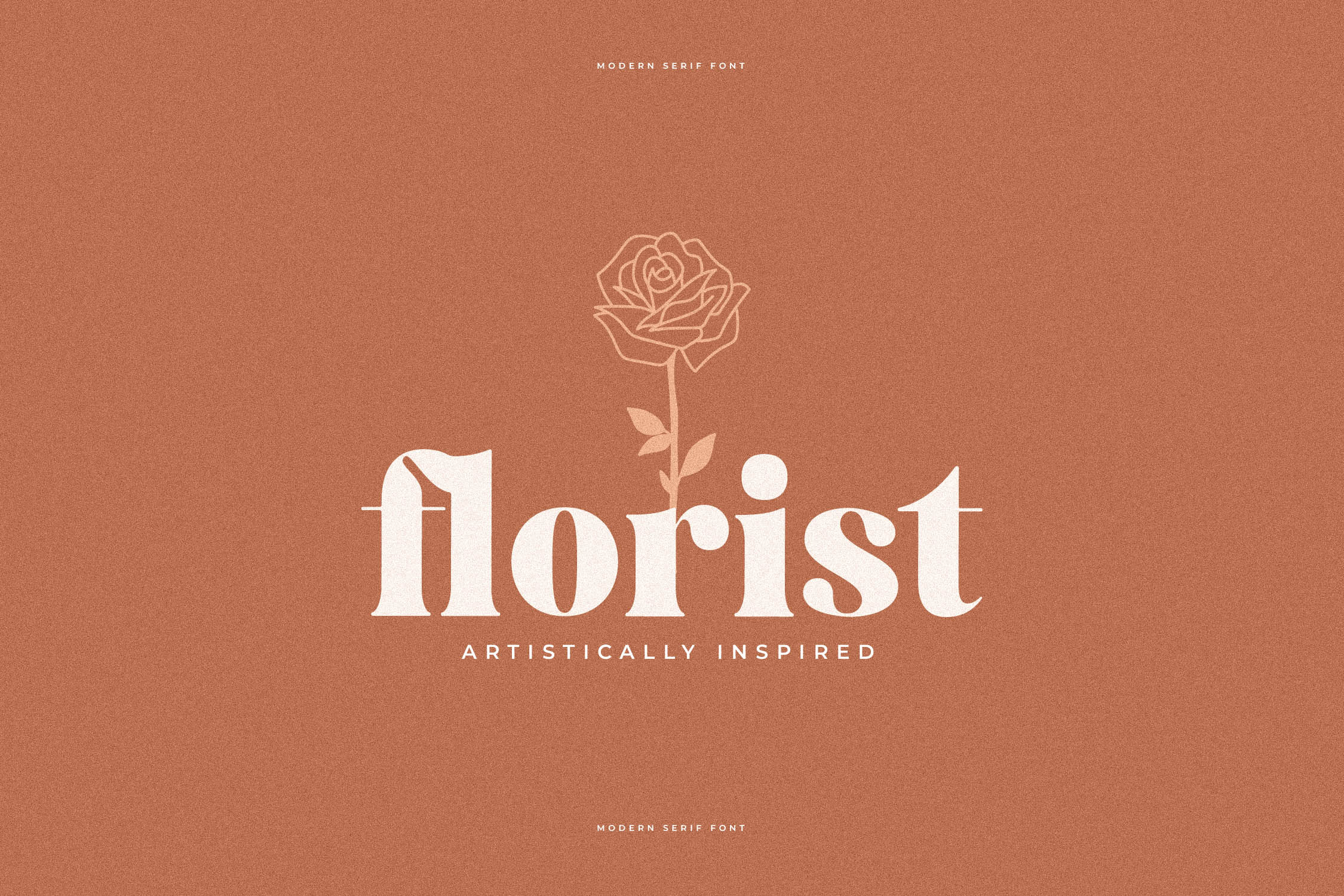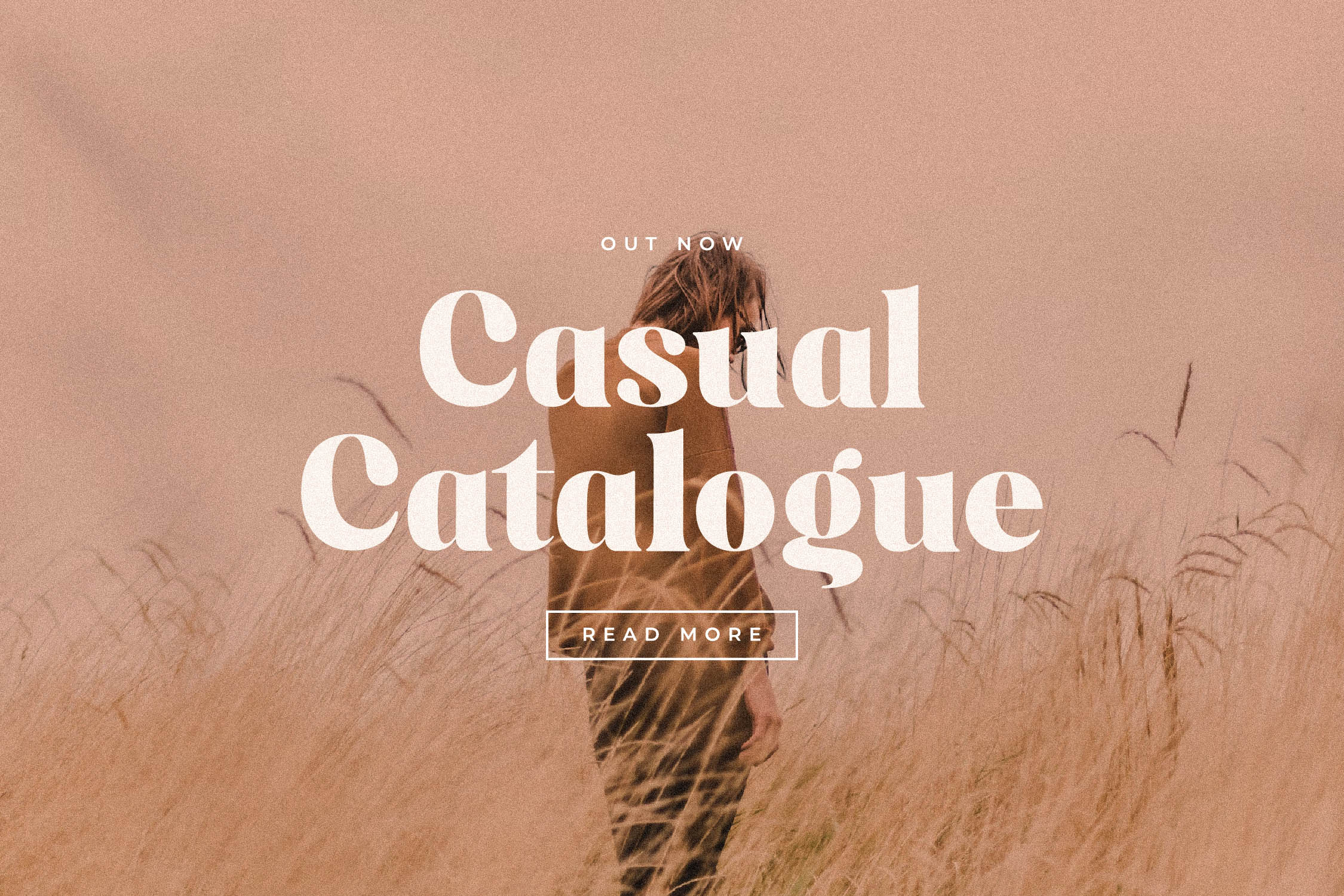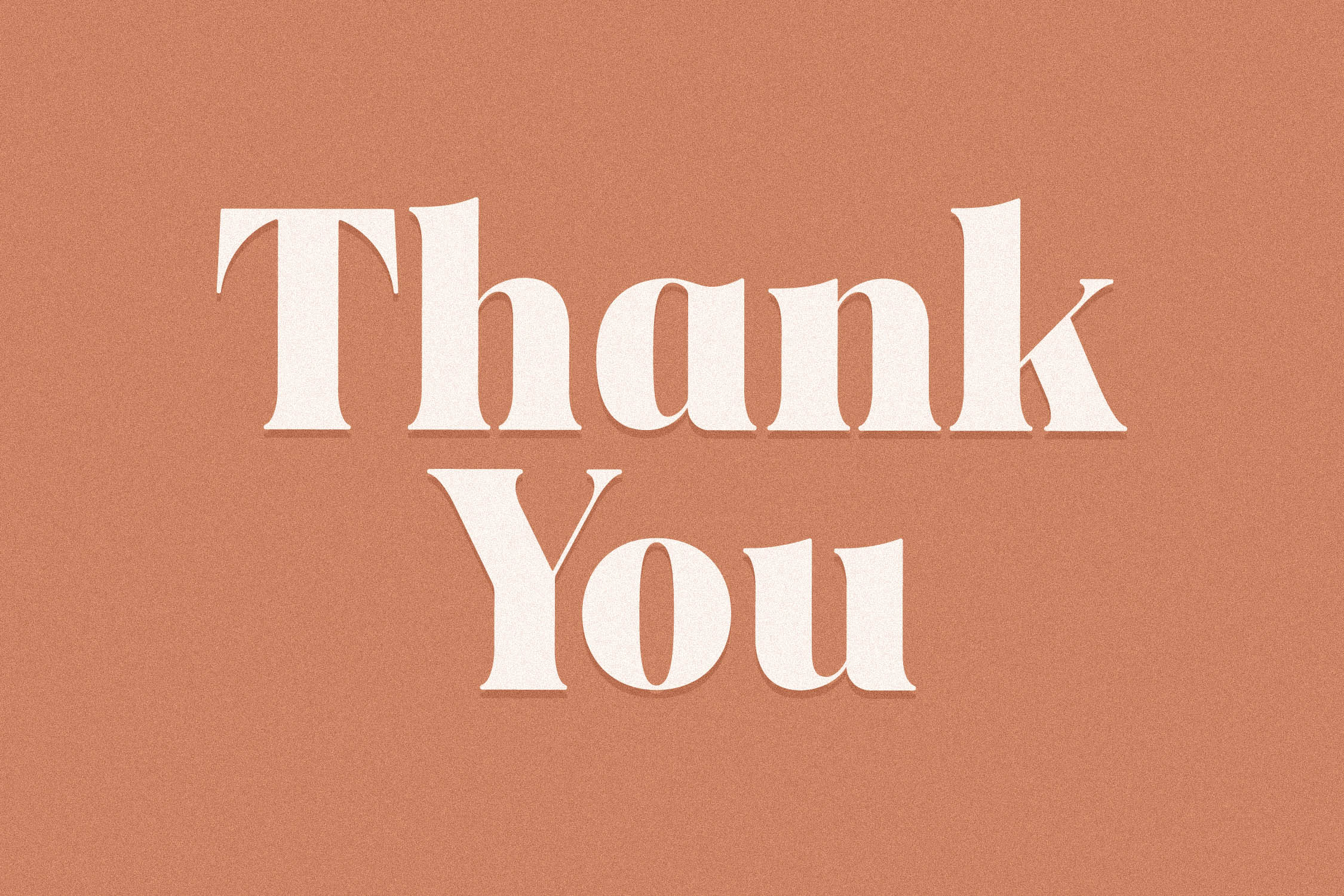
Ragitta Font
Ragitta Serif Font is a serif modern and classic typeface that has own unique style & modern look. This typeface is perfect for an elegant & luxury logo, book or movie title design, fashion brand, magazine, clothes, lettering, quotes, and so much more.